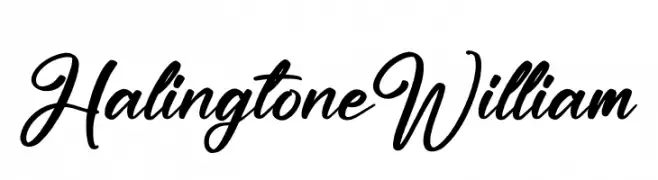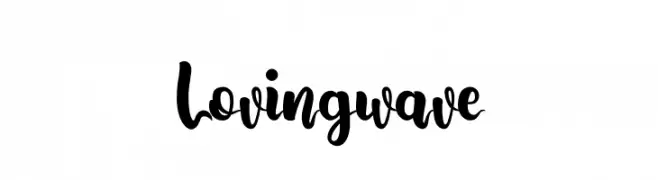
A bold, flowing script font with elegant, connected letters.
An elegant and flowing script font with a sophisticated style.
A classic and elegant script font with flowing, cursive letterforms.
A bold, flowing script font with elegant, connected strokes.
A bold, cursive italic font with a flowing, handwritten style.
A lively and elegant script font with flowing, cursive letterforms.
An elegant, flowing script font with a cursive, italic style.
An elegant script font with flowing, cursive letterforms and a classic appearance.
A flowing, cursive script font with elegant, connected strokes and an italic slant.
A flowing, elegant script font with bold, dynamic curves and italic styling.